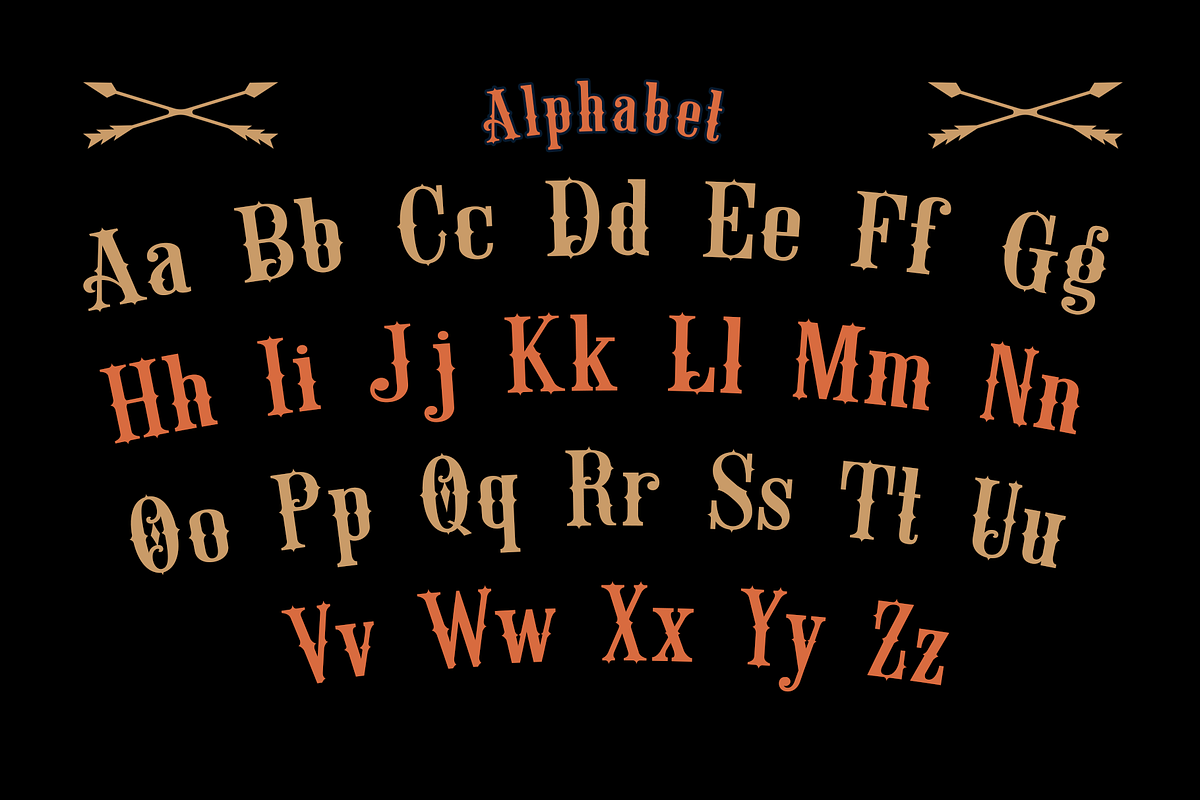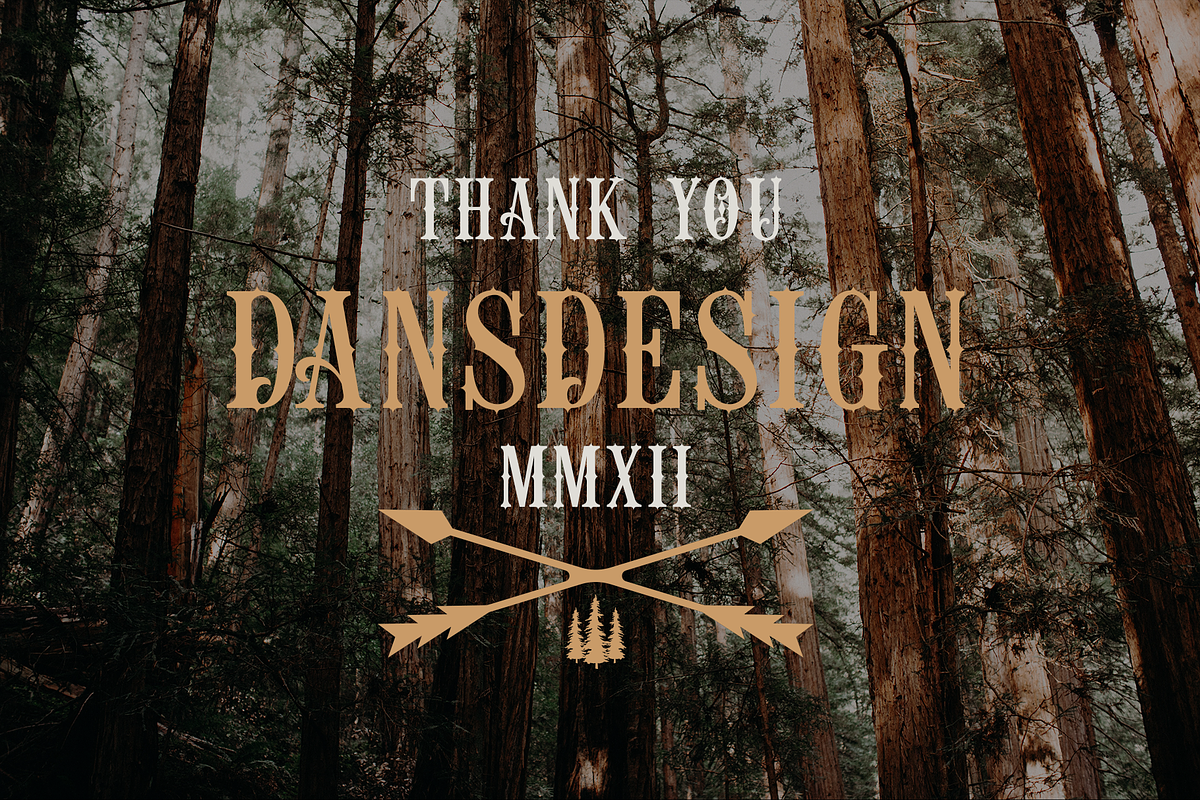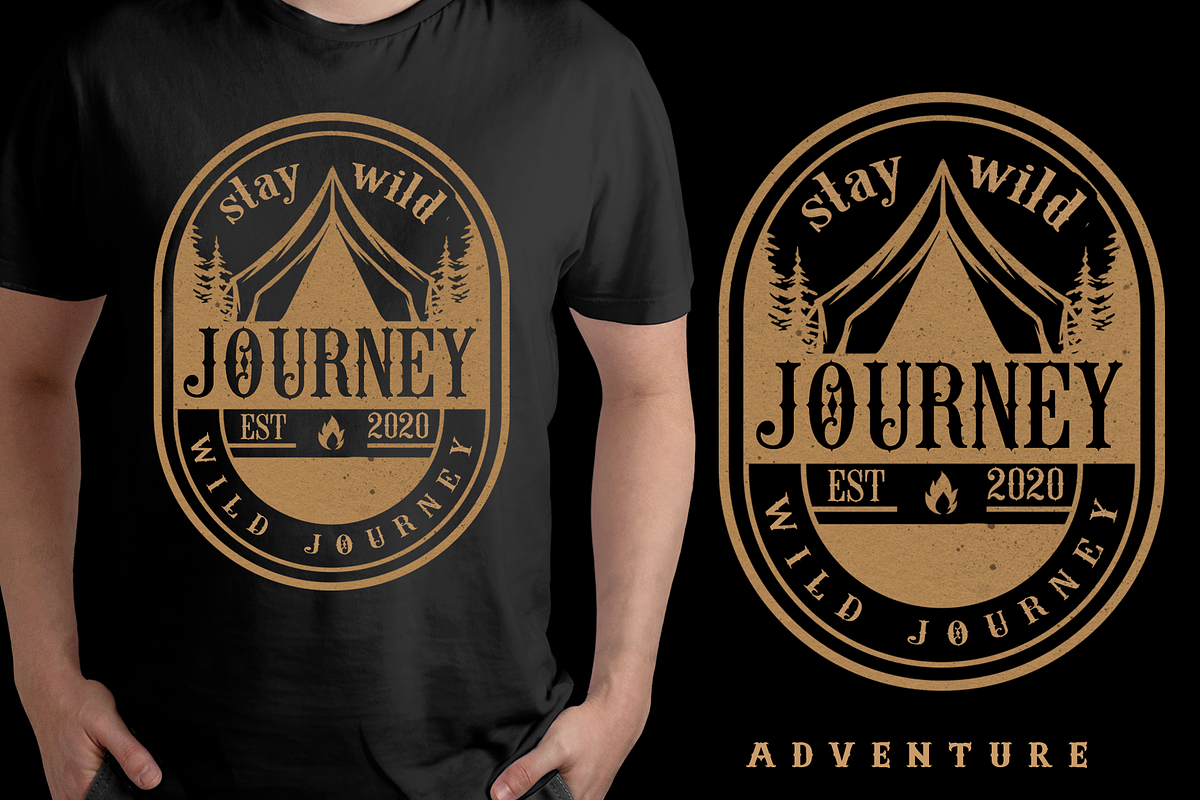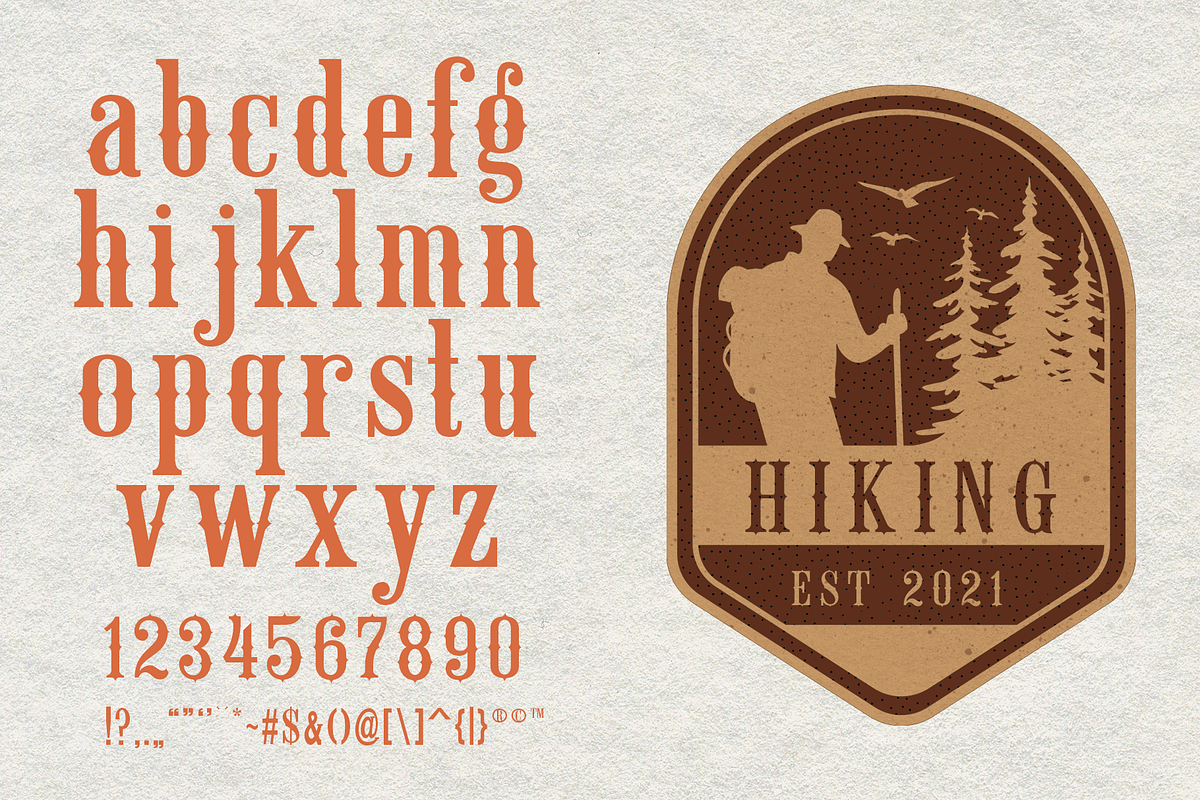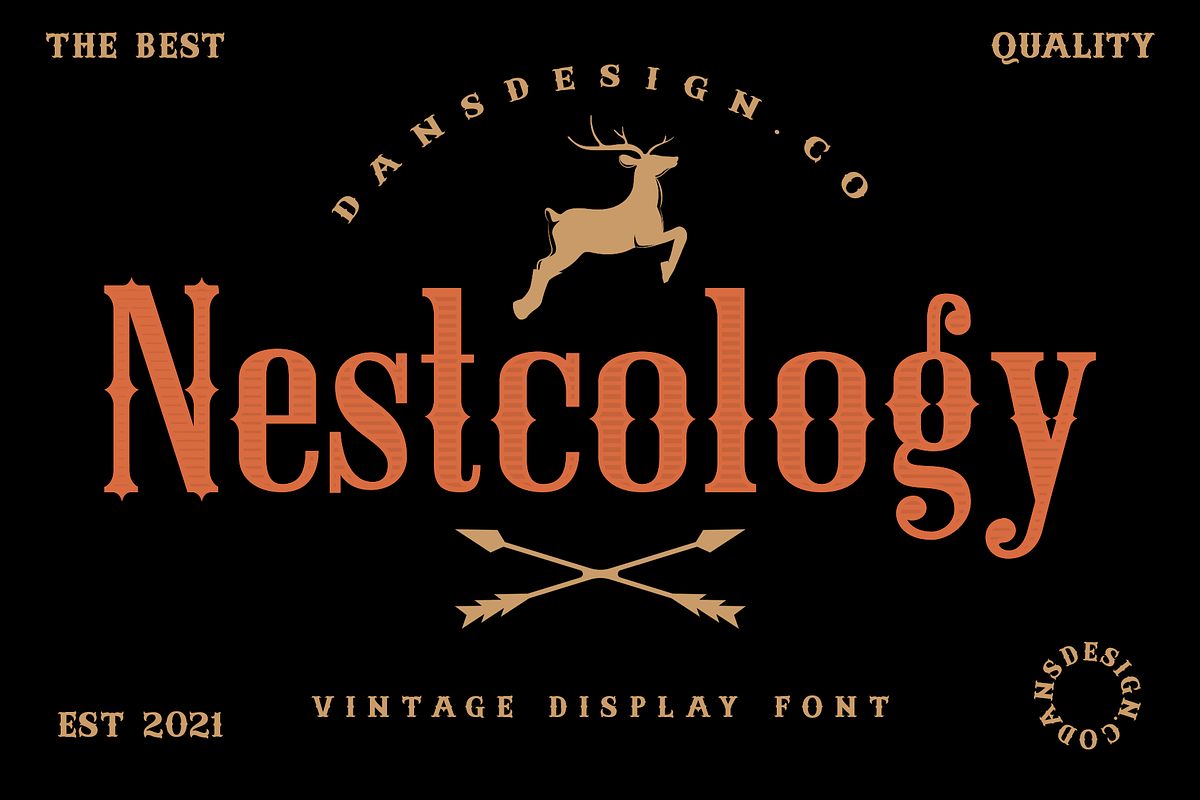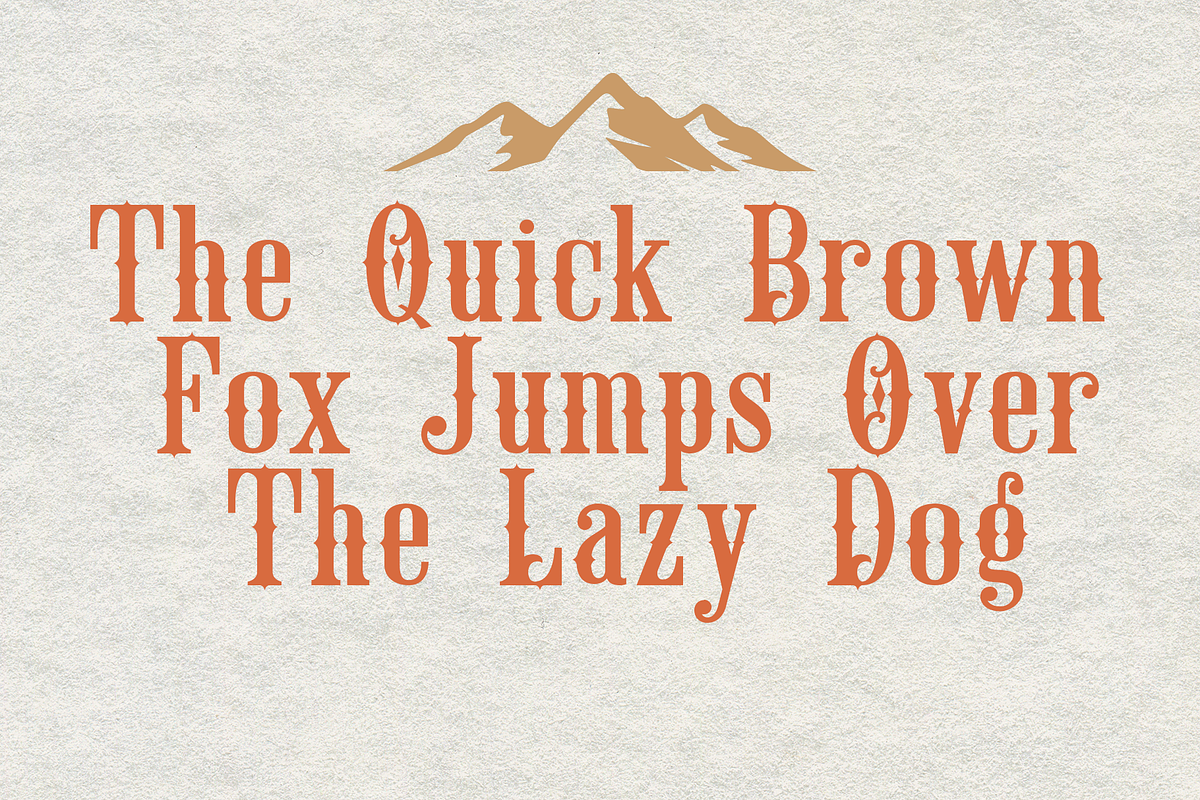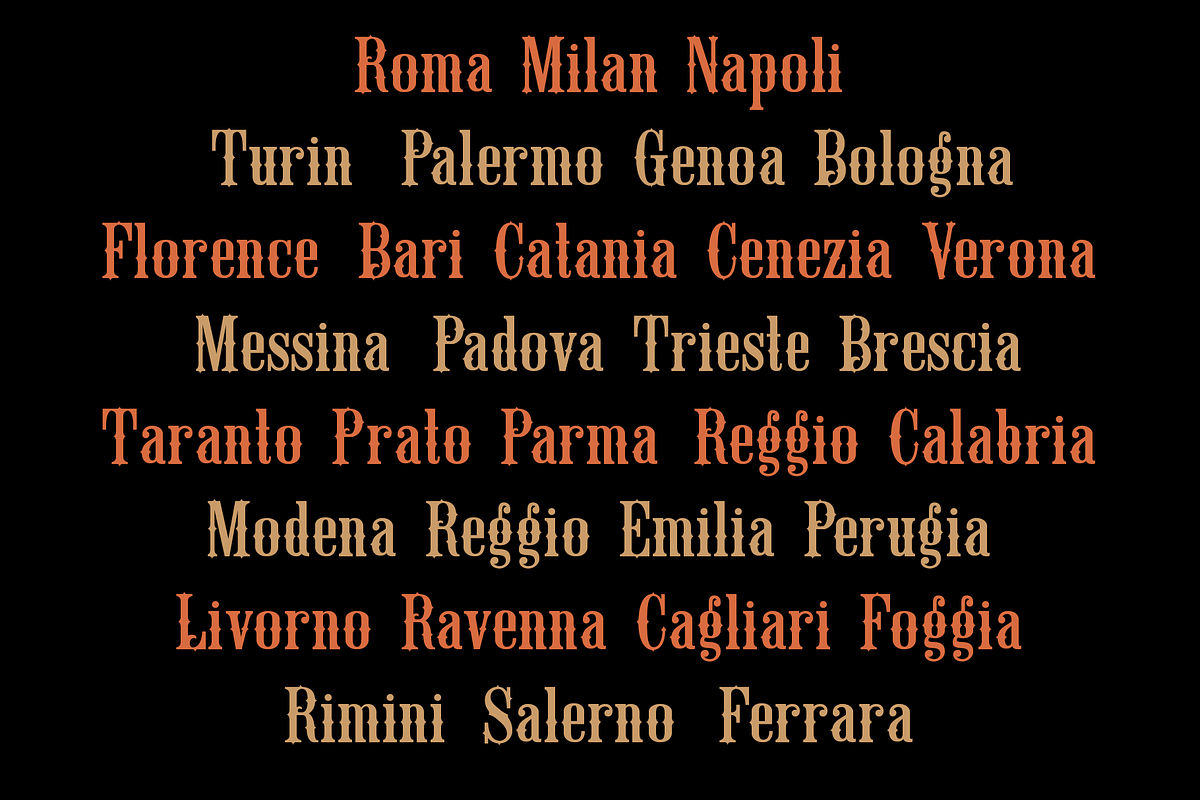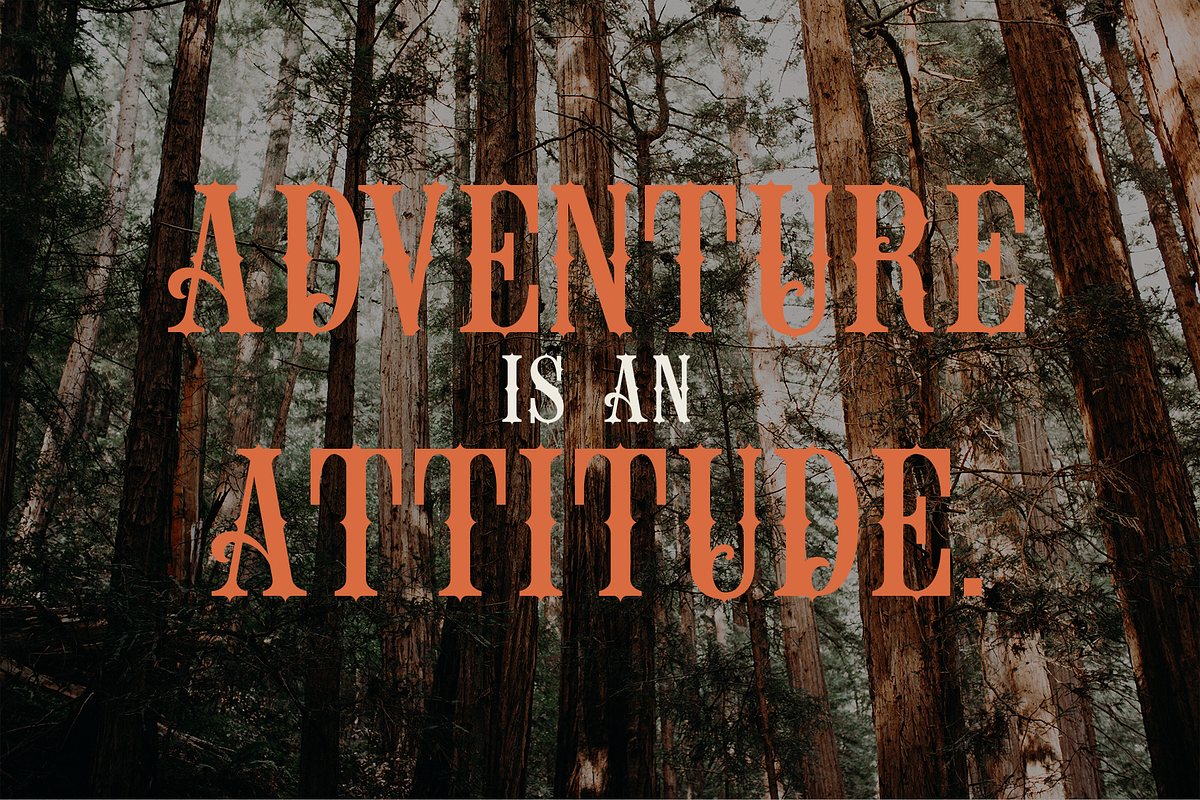
Nestcology
Nestcology Vintage blackletter font. Fall for its ravishing style and use it to create gorgeous wedding invitations, beautiful stationary art, eye-catching social media posts, and much more!